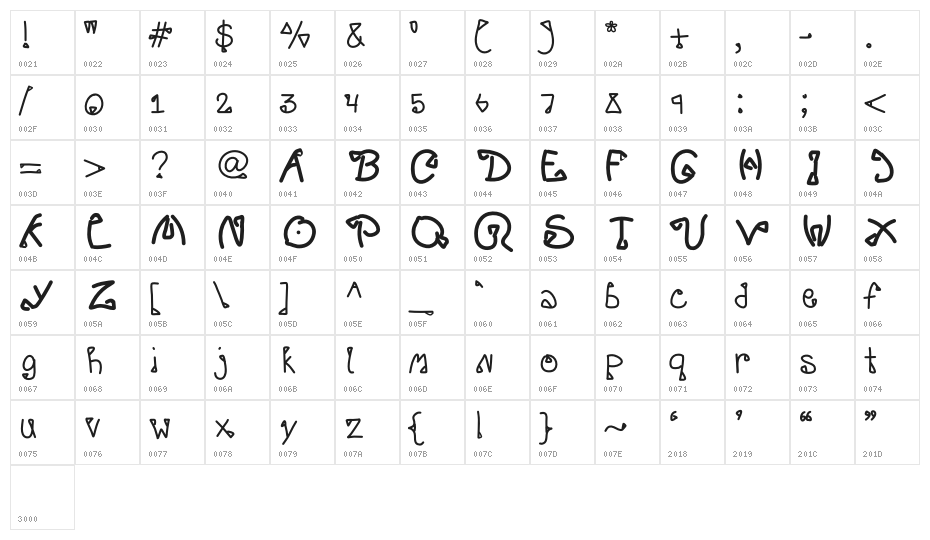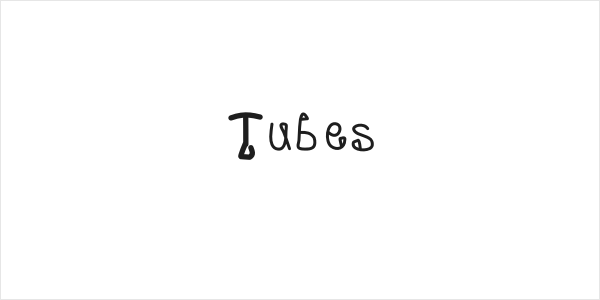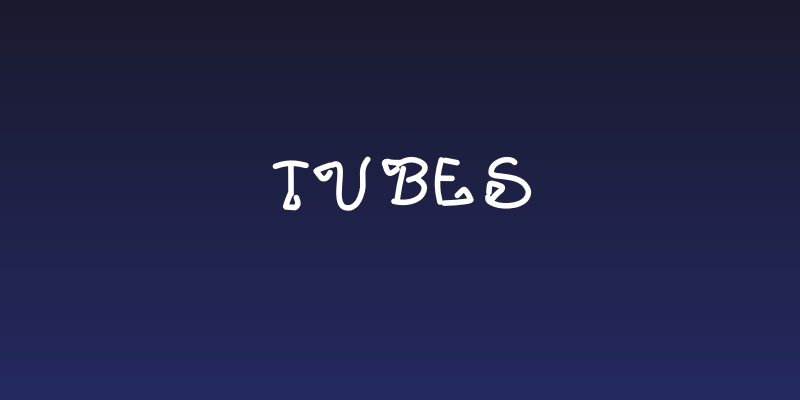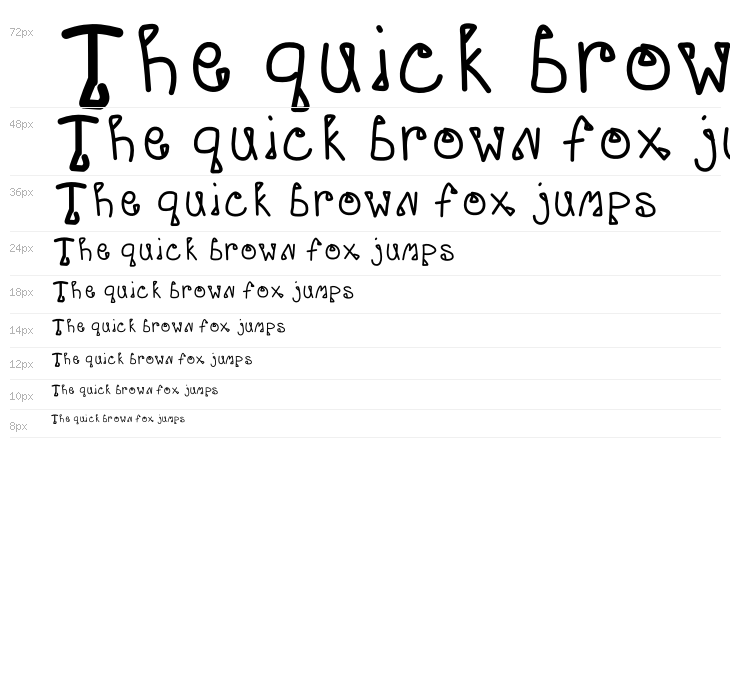
Tubes Font
Tubes Description
This font exhibits a playful and quirky style, characterized by its irregular, hand-drawn appearance. Each character features unique, whimsical curves and angles, giving the typeface a lively and informal feel. The letters are bold and slightly uneven, with varying stroke thicknesses that add to its charm. The uppercase and lowercase letters maintain a consistent style, while the numbers and special characters follow the same playful theme. This font's distinct personality makes it stand out, ideal for creative and fun projects.
Overall StylePlayful, Quirky, Hand-drawn
Proposed ProjectsIdeal for children's books, comic strips, playful branding, and creative posters.